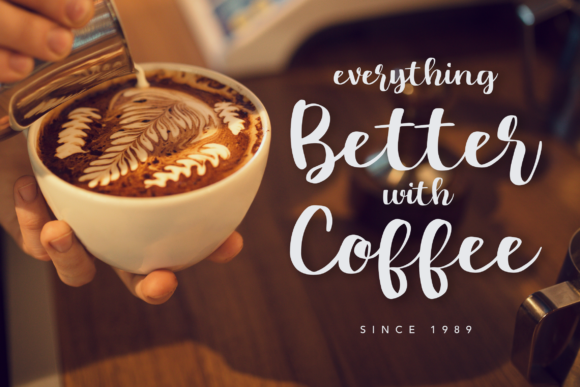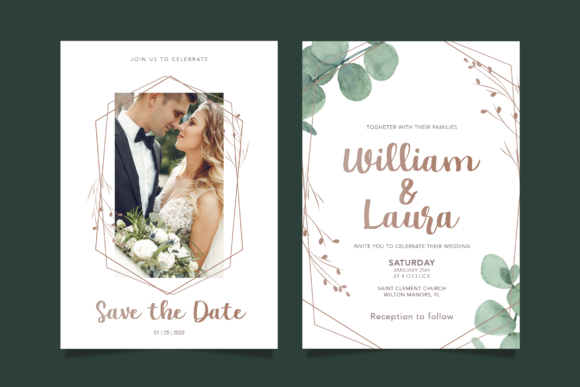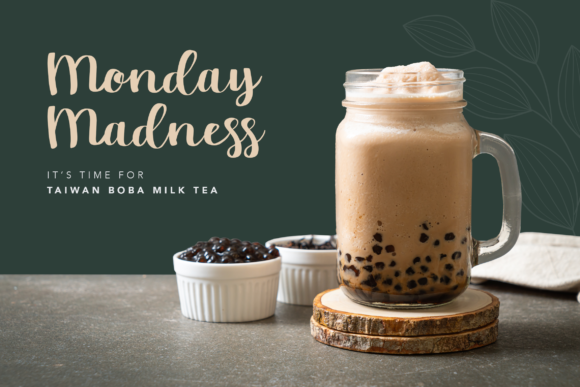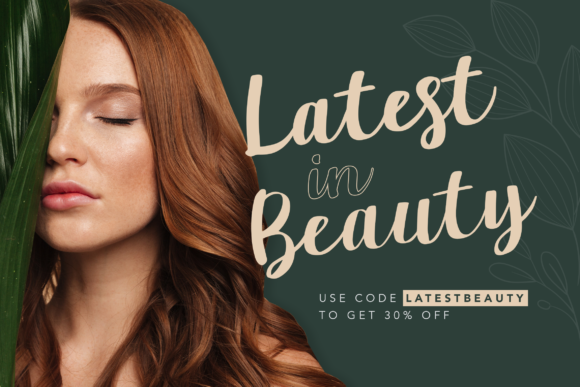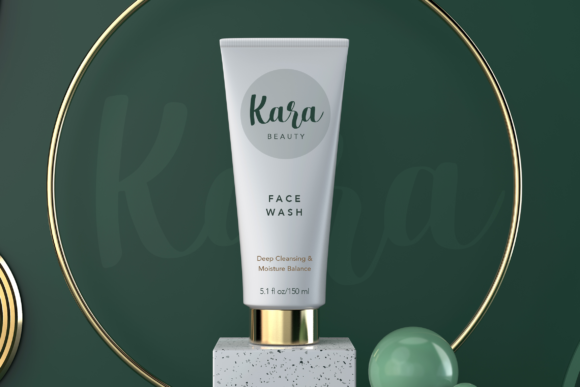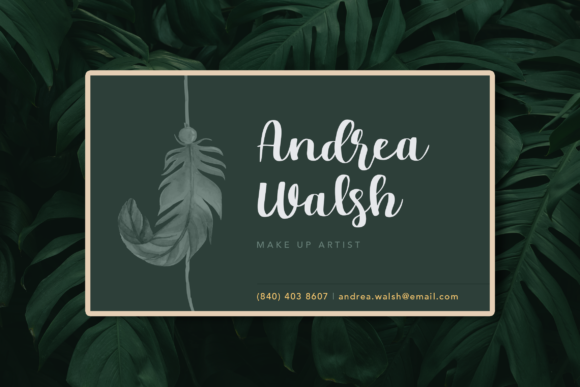
Discover the Elegance of Chasy Font: Elevate Your Designs with a Personal Touch
Are you looking for a font that adds a touch of sophistication and personality to your design projects? Look no further than Chasy Font, a stunning calligraphic script that is sure to inspire. With its unique charm and stylish flair, Chasy is the perfect choice for designers and crafters seeking to add a personal feel to their work.
What is Chasy Font?
Chasy Font is a beautiful, hand-crafted calligraphic script that exudes elegance and refinement. Its intricate lettering and flowing curves make it an ideal choice for a wide range of design applications, from wedding invitations and event branding to packaging and advertising. Whether you’re a professional designer or a crafty DIY enthusiast, Chasy Font is sure to impress.
The Unique Charm of Chasy Font
So, what sets Chasy Font apart from other fonts? Here are just a few of its standout features:
- Hand-crafted with love: Chasy Font is carefully crafted by skilled calligraphers, ensuring that every letter and curve is meticulously designed to perfection.
- Stylish and fancy: With its intricate lettering and flowing curves, Chasy Font adds a touch of sophistication and glamour to any design.
- Personal feel: Chasy Font’s unique charm and character make it perfect for adding a personal touch to your designs, setting them apart from the ordinary.
- Versatile: Whether you’re designing a wedding invitation, a logo, or a social media graphic, Chasy Font is versatile enough to adapt to any design style or theme.
How to Use Chasy Font in Your Designs
Ready to get started with Chasy Font? Here are some ideas for incorporating this beautiful calligraphic script into your designs:
- Wedding invitations and stationery: Add a touch of romance and elegance to your wedding stationery with Chasy Font.
- Branding and packaging: Use Chasy Font to create eye-catching packaging and branding materials that reflect your brand’s personality.
- Social media graphics: Elevate your social media graphics with Chasy Font’s stylish and sophisticated lettering.
- DIY crafts: Add a personal touch to your DIY crafts, such as handmade cards, gift tags, and scrapbook pages, with Chasy Font.
Tips for Getting the Most Out of Chasy Font
To make the most of Chasy Font, here are some expert tips:
- Pair it with contrasting fonts: Combine Chasy Font with simpler, sans-serif fonts to create visual interest and contrast.
- Experiment with colors: Try pairing Chasy Font with a range of colors to find the perfect combination for your design.
- Play with textures and patterns: Add depth and interest to your designs by combining Chasy Font with textures and patterns.
In conclusion, Chasy Font is a stunning calligraphic script that adds a touch of elegance and personality to any design. With its unique charm, stylish flair, and versatility, it’s the perfect choice for designers and crafters seeking to elevate their work. So why wait? Get inspired by Chasy Font today and discover a world of creative possibilities!